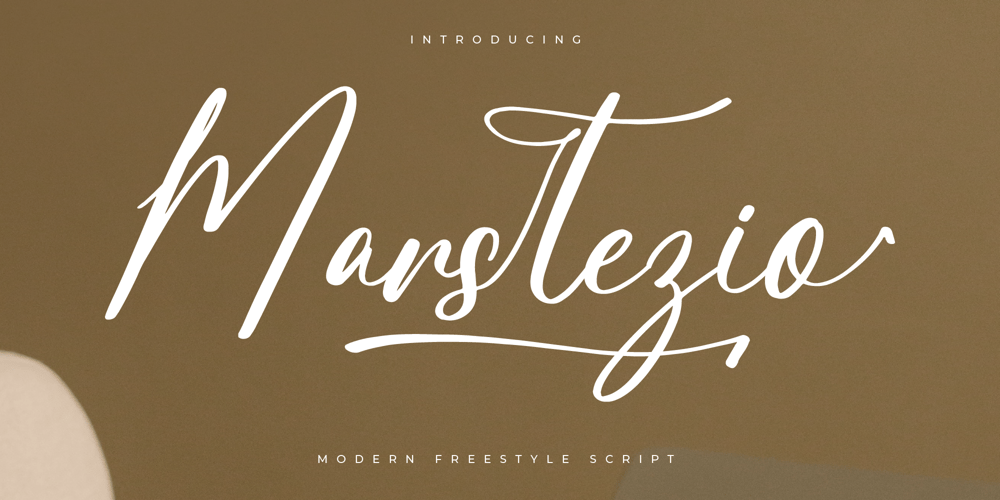
Marstezio
Marstezio font
Marstezio Font Family was designed by Heru Utama Putra and published by Letterena Studios. Marstezio contains 2 styles and family package options. Marstezio is a dazzling script font that exudes elegance and charm. With its fluid strokes and intricate details, it captivates the eye and adds a touch of sophistication to any design project. Perfect for invitations, branding, and headlines, Marstezio brings a sense of luxury and style to your creations.